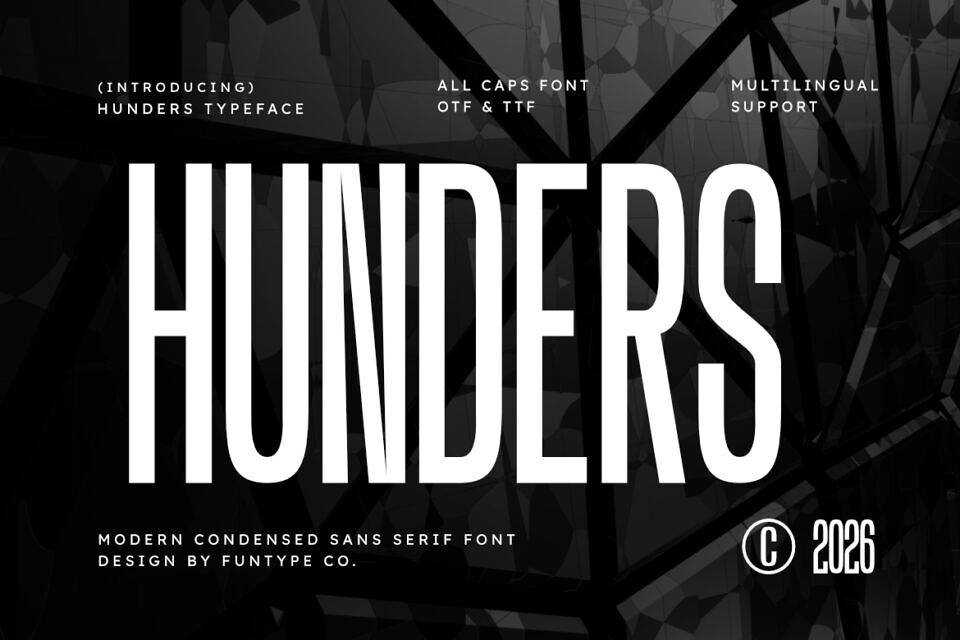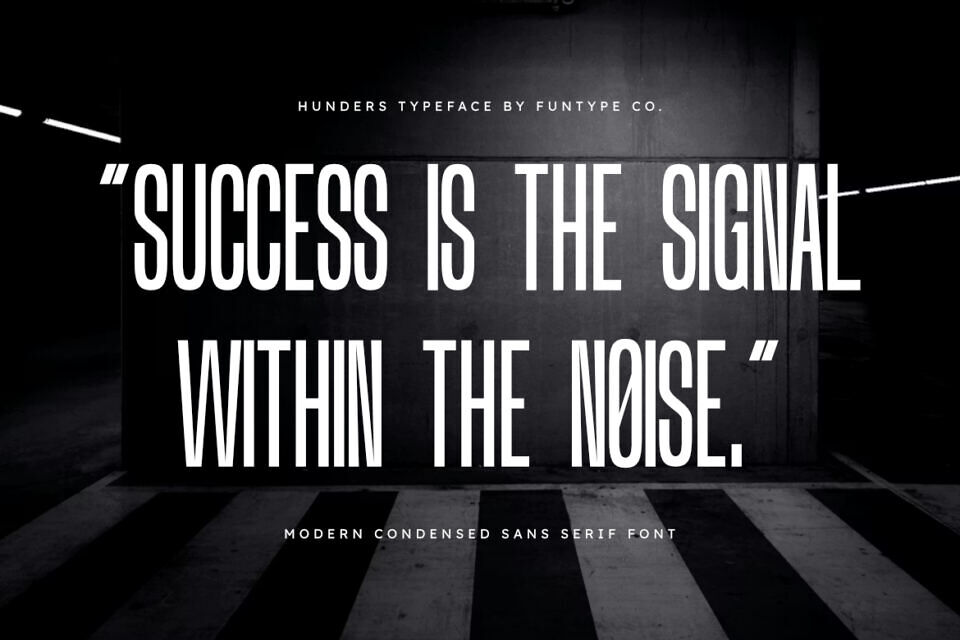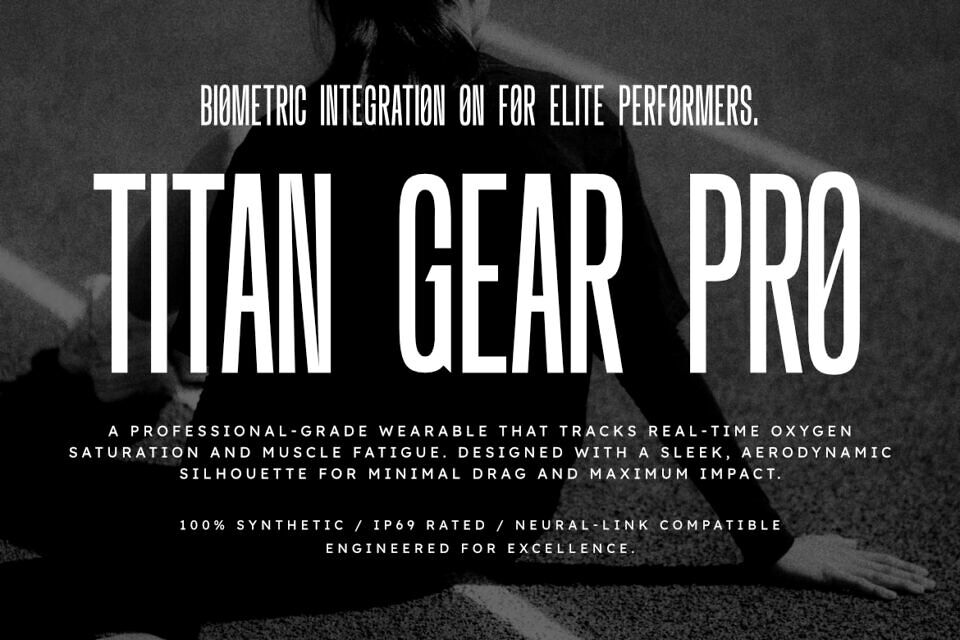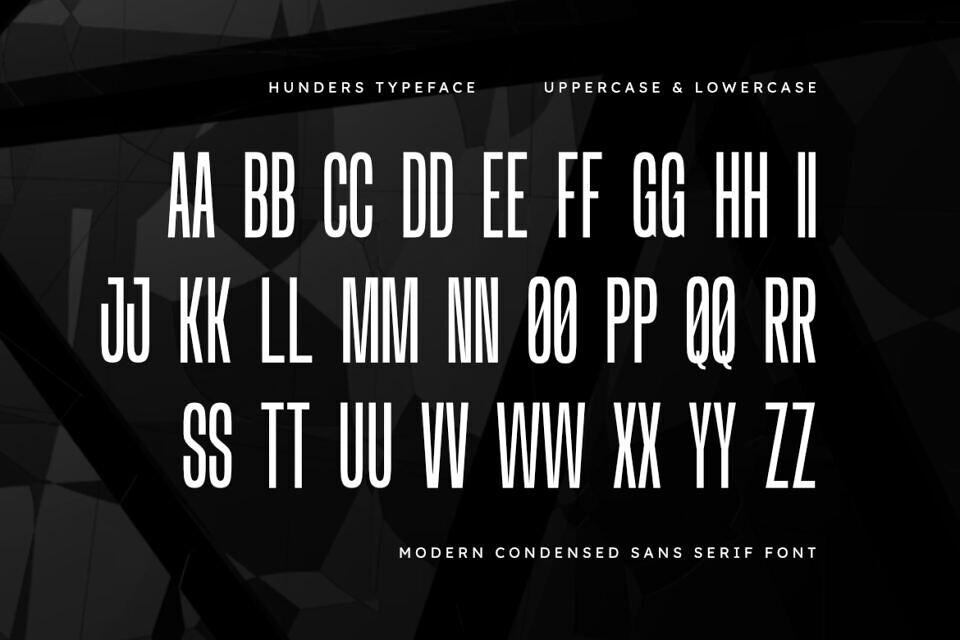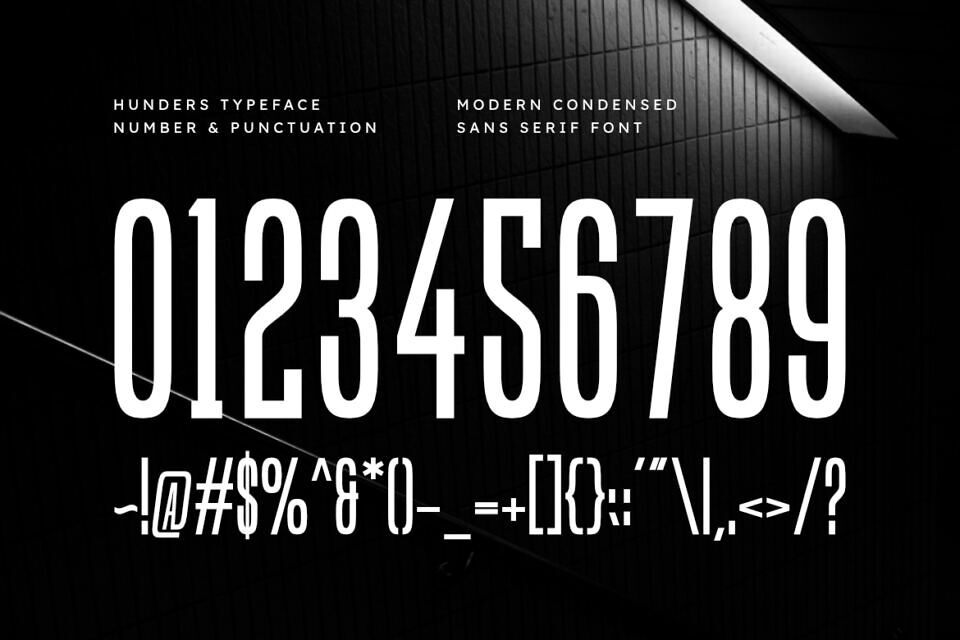
Hunders is a sophisticated and powerful modern condensed sans serif font, thoughtfully designed to capture the essence of contemporary elegance and urban storytelling. With its tall geometric structure and clean, narrow lines, Hunders offers a professional aesthetic that brings a touch of commanding grace to any creative project.
Whether you are crafting a striking cinematic poster, a sleek high-fashion brand, or bold editorial layouts, Hunders provides a seamless blend of modern edge and timeless sophistication.